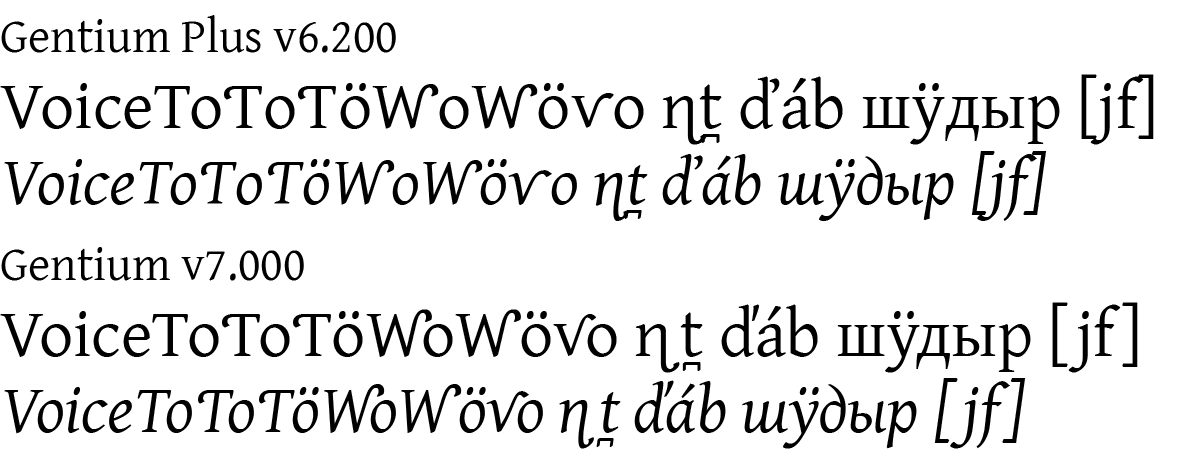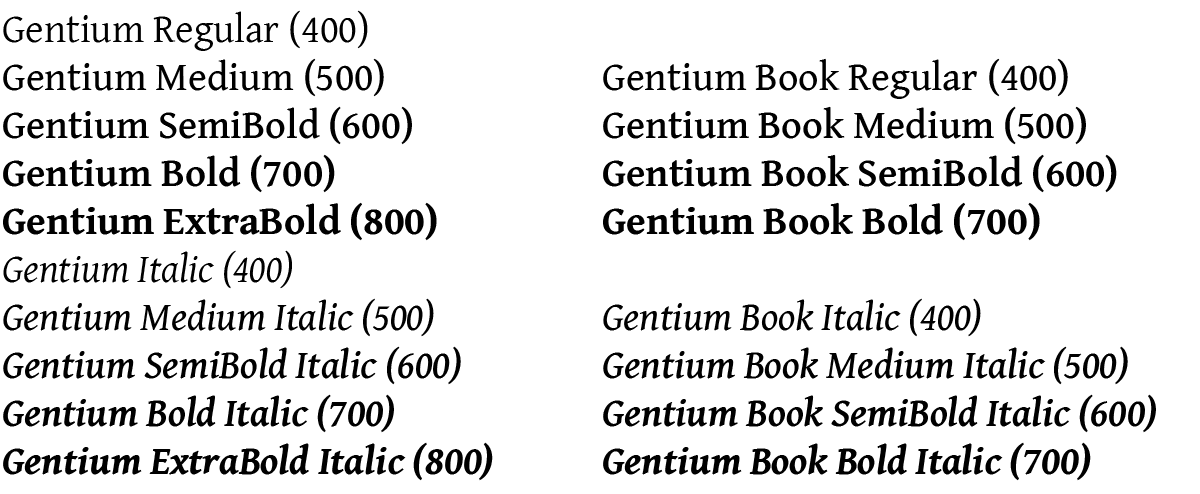
Gentium - Version 7 Changes
New major release
Gentium version 7 is a major release with many new additions, enhancements, and improvements. This is a summary of the most notable changes and what you need to know if you have been using earlier versions. Please read this carefully to understand the major changes. For further details on these changes, particularly regarding individual characters, see Version History.
Family names and structure
Font family names have changed
Since the changes to both line metrics and spacing are so extensive, we have changed the names of the fonts for version 7.
- Gentium Plus is now Gentium
- Gentium Book Plus is now Gentium Book
This enables you to keep the old v6.2 fonts installed when you install the new v7 ones. Projects and documents can then be gradually changed to use the new v7. We do recommend that you start using v7 right away and phase out your use of v6.2 as soon as possible.
Revised family groups with additional weights
Both Gentium and Gentium Book families now have additional intermediate weights, with the previous Book family weights integrated into the main Gentium family. Previously existing weights in both families have not changed. The CSS values for the weights within each family are in parentheses. Italic faces follow a similar structure and correspondence.
All the previous Book weights are present in the main Gentium family, so for many users the Book family is no longer needed. The main reason to use the Book family is if you prefer Gentium Book Regular as a primary text face and want to retain automatic style linking with Gentium Book Bold.
The new intermediate weights in these extended, axis-based families can be confusing for applications that still assume families should have only four members (Regular, Italic, Bold, Bold Italic). This is the case for Microsoft Word and some older Windows applications. For details on how to use the intermediate weights in these applications, see Using Axis-Based Font Families.
Decreased default line spacing - and no Compact versions
The default line spacing of Gentium has been significantly decreased. In the past, line spacing had to be extreme to avoid clipping of tall letters and high diacritics on Windows. This is no longer a problem, so we’ve been able to reduce the default line spacing to be more similar to other common text fonts. We continue to recommend that you set line spacing explicitly in your document styles and preferences, and adjust it as needed for your particular situation.
The v7 fonts do not have Compact variants. The new default line spacing is closer to the previous version’s Compact line spacing. If you still need even closer line spacing, and your application does not allow explicit control over line spacing, you can continue to use the v6.2 Gentium Plus Compact fonts, which remain available. If you need any of the new v7 features or characters, but also need them supported in a compact version please contact us.
TypeTuner Web no longer offers line spacing alternatives for the v7 fonts (Normal, Tight, Loose). If you need Tight or Loose variants the v6.2 fonts remain available and support line spacing alternatives.
Special-purpose modified variants have not been updated to v7
In previous versions, special-purpose modified font variants were available that had been ‘pre-tuned’ to turn on certain features by default for some regional and Literacy uses. These are not available for the v7 fonts, however, the v6.2 special-purpose fonts are still available. If you need any of the new features or characters in this version, but also need them supported in the special-purpose modified fonts please contact us.
Note that even in version 7 the literacy forms and other features can be manually preset with TypeTuner Web. The only change to this is that the 'pre-tuned' versions remain at version 6.2.
New features and character support
Greatly enhanced kerning
Kerning has now been expanded to cover the full range of alphabetic symbols except for small caps (which will be included in a future update). To make this practically useful for a wide range of languages, the letters have been clustered into overly generalized groups. This enables the kerning to apply to more combinations, but does not allow for careful fine-tuning. The expanded kerning may not be ideal in all cases, and may still require manual adjustment, but it should provide improved spacing compared with previous versions. It is very possible that we have made some mistakes in this massive kerning effort, so please contact us if you encounter any combinations whose spacing has been made worse than in v6.2.
Warning: Because of the addition of extensive kerning, line, paragraph, and page lengths may be different from v6.2.
Proportional Oldstyle figures
Gentium now includes support for standard OpenType proportional
oldstyle figures (onum
). These only apply to the main
numerals, not fractions, superscripts, or numeral-based symbols.
Greek improvements
Greek OpenType support is significantly more robust. Small caps
(both smcp
and c2sc
) are supported, with
diacritics bring removed. There is better handling of both combining
and non-combining diacritics. Macron + diacritic combinations are
now supported, as well as some rare epsilon and omicron diacritic
combinations. These require a very specific character order and may
not be supported by some applications and keyboards - see Greek Encoding Details.
Capital N Left Hook default changed to lowercase style
The default form for capital N with left hook has been changed to
the lowercase style to match the capital Eng. The related feature
(cv44
) has been changed to substitute the uppercase
style form. See the Feature list.
Additional character support including Unicode 16
Support has been added for 29 additional characters, some of which were introduced in Unicode 16. For a full list see Version History.
Consistent autohinting
Autohinting has been improved to be more consistent across the whole family.
Upright and italic faces appear more consistent in height in smaller sizes (Windows 11, Word, 9 pt, 150%, enlarged)
General improvements
Other improvements have been made to over 150 glyphs, OpenType code, and other font aspects, including:
- Letters with upper-right hooks have been redesigned to improve spacing (including kerning) and reduce collisions. Some collisions have been retained to reduce unwanted whitespace within words (e.g. ƴk).
- Central European carons have improved designs and kerning.
- Bridging diacritics handle many more possible combinations. See Using Bridging Diacritics for details on how these need to be encoded and ordered.
- Low-profile diacritics are used for capitals for Cyrillic as well as Latin.
- The small caps feature now affects parentheses and brackets.